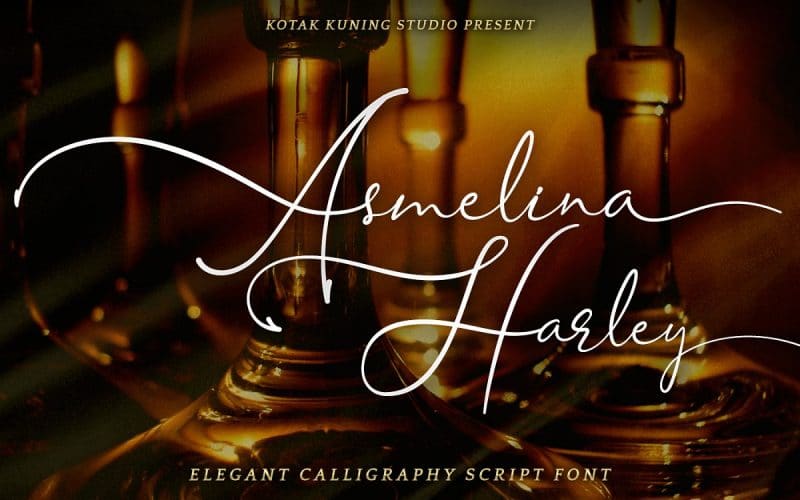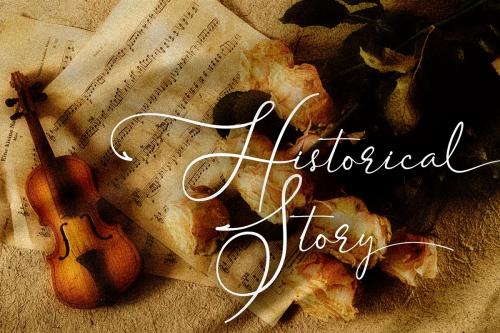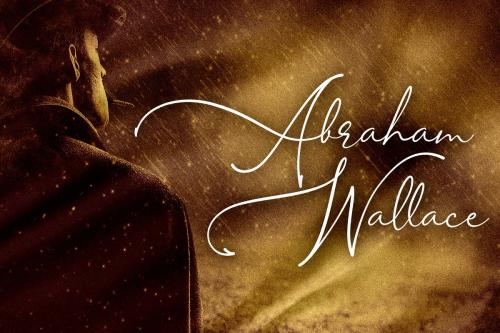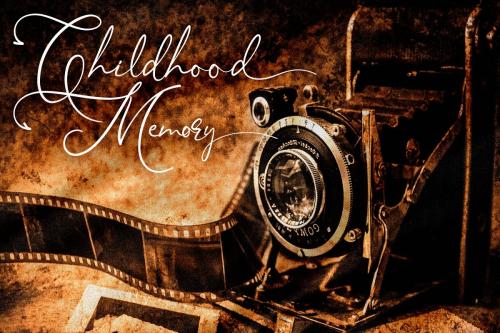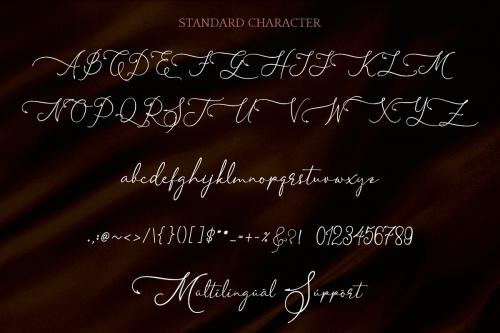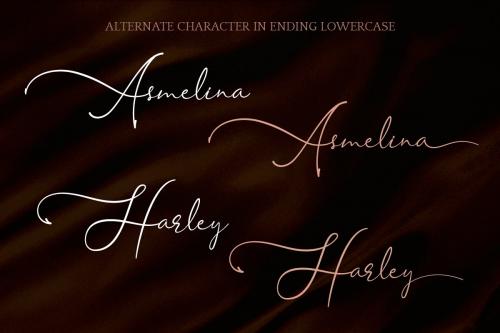
Asmelina Harley is a elegant calligraphy script font. Perfect for making elegant stylish statements – or adding a touch of class to your designs.
This script has a multitude of natural looking ligatures in its OpenType features – making the font look as close to natural handwriting as possible.
Asmelina Harley is perfect for many different project such as logos & branding, invitation, stationery, wedding designs, social media posts, advertisements, product packaging, product designs, label, photography, watermark, special events or anything